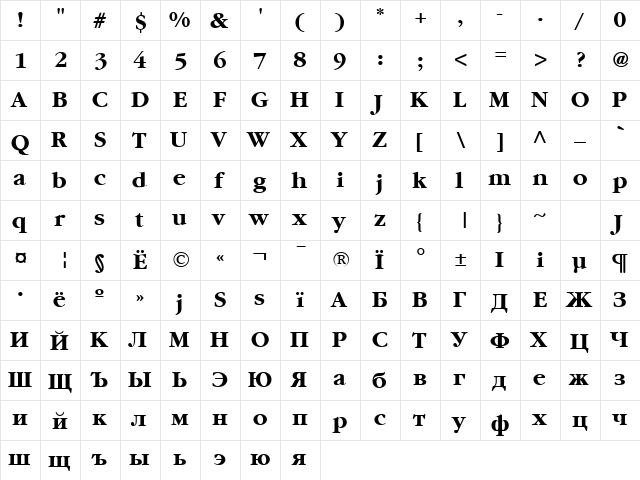
Saturn Bold
Design Context for Saturn Typeface
Saturn offers clean, dependable letterforms without strong stylistic allegiance, making it a practical choice for designers who need flexibility. Its bold stroke weight gives it real presence on the page.
Pro Tip: Use Saturn in both headline and body roles to test its range before committing to a single application.